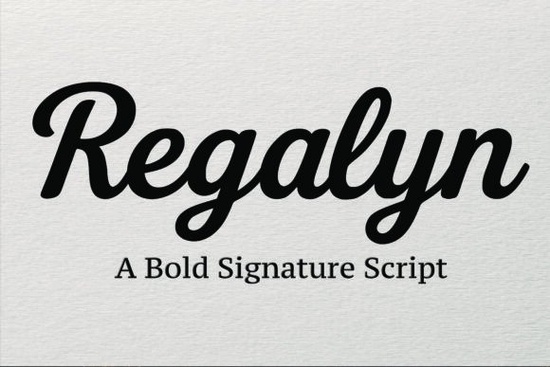
If you're looking for a script font that blends bold personality with elegant handwriting, Regalyn Font might be exactly what your next project needs. Designed with smooth, flowing strokes and confident curves, it brings modern calligraphy into practical use whether you're creating wedding invitations, branding materials, or social media posts. Unlike overly ornate scripts that sacrifice legibility, Regalyn maintains clarity while still feeling personal and refined.
What sets Regalyn apart is its balance. The bold weight gives it presence without overwhelming the viewer, and the natural rhythm of each letter mimics real handwriting just polished enough for professional use. You’ll notice subtle swashes that add flair without cluttering your layout, making it ideal for headlines, logos, or packaging where you want to stand out but still look approachable.
When should you use Regalyn Font?
Regalyn shines in projects that call for warmth and sophistication. Think:
- Branding for boutique businesses like skincare lines, bakeries, or wedding planners
- Event stationery, especially weddings, anniversaries, or upscale parties
- Social media graphics that need a human touch but still feel curated
- Print-on-demand products such as mugs, tote bags, or greeting cards
Because it’s highly readable even at larger sizes, it works well for short headlines or featured quotes. Just avoid using it for long paragraphs script fonts like this are best reserved for emphasis and visual interest.
How does it compare to other signature scripts?
Not all script fonts strike the same tone. For example, if you’ve used Lemon Charm, you know it leans playful and bouncy great for casual or youthful designs. Tyson, on the other hand, offers a more rugged, masculine energy with sharper angles. And if you’re after something ultra-friendly and rounded, Bubble delivers that cheerful, soft aesthetic.
Regalyn sits in a different lane: it’s confident, graceful, and slightly formal but never stiff. It’s the kind of font that says “thoughtfully crafted” without shouting. If your brand values elegance with authenticity, this is a strong contender.
Tips for pairing Regalyn with other fonts
Since Regalyn carries so much character on its own, pair it with clean, neutral typefaces to avoid visual competition. A simple sans-serif like Montserrat, Lato, or even Helvetica works well for body text or subheadings. Keep contrast in mind: if Regalyn is your display font, let the supporting font stay lightweight and understated.
Also, pay attention to spacing. Script fonts often benefit from generous letter-spacing in headlines, but Regalyn’s built-in flow usually means you don’t need to adjust much. Test your layout at actual size what looks balanced on screen might feel cramped when printed on a product label or invitation.
Who is this font really for?
Regalyn is especially useful if you’re a small business owner creating your own marketing materials, a crafter designing custom wedding suites, or a print-on-demand seller building themed collections. Its professional finish means you don’t need advanced design skills to make something that looks intentional and high-quality.
Even hobbyists will appreciate how easy it is to use. Drop it into Canva, Adobe Express, or Silhouette Studio, type a name or quote, and you instantly get a design that feels bespoke. No need to layer effects or tweak curves Regalyn arrives ready to impress.
Before you commit, consider your project’s mood. If you’re going for rustic, edgy, or minimalist, another script (or no script at all) might serve you better. But if you want elegance with heart, Regalyn delivers.
Quick checklist before using Regalyn Font
- ✅ Use it for short text headlines, names, taglines not body copy
- ✅ Pair with a simple sans-serif for balance
- ✅ Preview your design at real-world size (e.g., on a mockup of a mug or invitation)
- ✅ Explore stylistic alternates if your software supports OpenType features